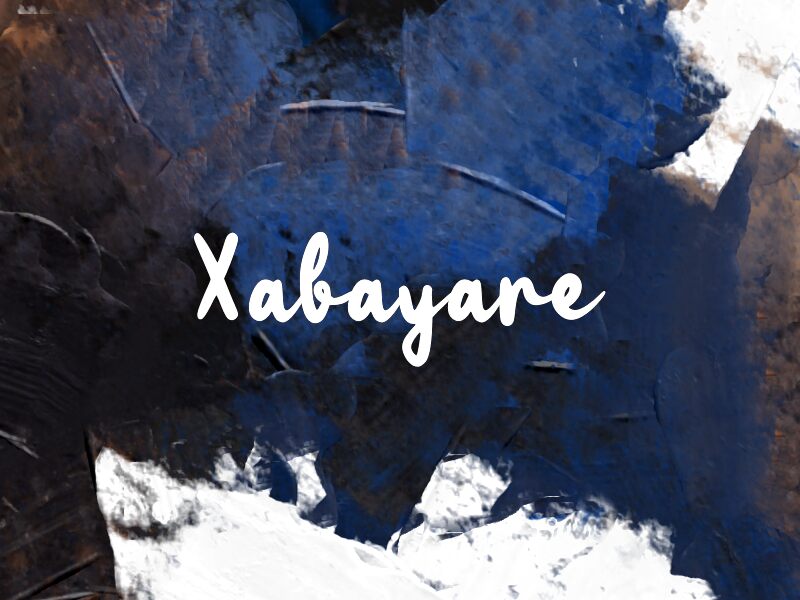
Xabayare font by wepfont.com is a free handwritten font showcasing a personal, contemporary style. It artistically imitates real handwriting with its gorgeous irregularities, taking type users a step closer to fully-real personification. The varying line thickness of its characters is the main reason why this font is so organic and wonderful. It beautifully supports multiple languages along with a full character set with digits, symbols, and punctuations.
Use this whimsical resource in your greeting card projects, branding and packaging, cartoon books, magazine designs, invitation cards, tagging, logos, and advertising content. Other suggested uses include blogs and websites, social media posts, video graphics, and more.
Xabayare is a unique and stylish free font that offers an artistic flair to your designs. It is perfect for those looking to add a touch of creativity to their projects, whether for personal use or commercial endeavors. With its distinctive letterforms and elegant curves, Xabayare stands out in any typography setting.
This versatile free font is suitable for various applications, including posters, branding, social media graphics, and more. The smooth lines and balanced proportions make it easy to read while maintaining a captivating aesthetic.